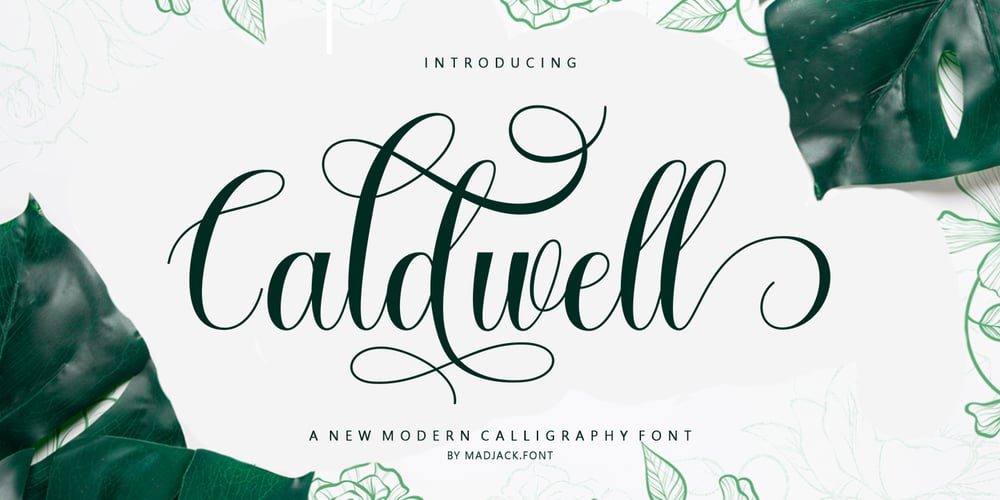
Caldwell Script Font Family was designed by Zaki Muhammad and published by madjack.font. Caldwell Script contains 1 styles and family package options. Caldwell Script is a modern calligraphy design. This typeface is casual and beautiful with swash. It can be used for various purposes such as logos, product packaging, wedding invitations, branding, headlines, signage, labels, signatures, book covers, posters, quotes, and more. Caldwell Script includes changes in the OpenType language style, binders and international support for most Western languages. To enable alternative OpenType alternatives, you need a program that supports OpenType features such as Adobe Illustrator CS, Adobe Indesign & CorelDraw X6-X7, Microsoft Word 2010 or newer versions. How to access all alternative characters using Adobe Illustrator: https://www.youtube.com/watch?v=XzwjMkbB-wQ Caldwell Script is coded with Unicode PUA, which allows full access to all additional characters without having special design software. Mac users can use Letter Book, and Windows users can use Character Maps to view and copy any of the additional characters to attach to your favorite text editor/application. How to access all alternative characters, using Windows Character Map with Photoshop: https://www.youtube.com/watch?v=Go9vacoYmBw If you need help or have questions, let me know. I am happy to help. Thank you & Happy Designing!